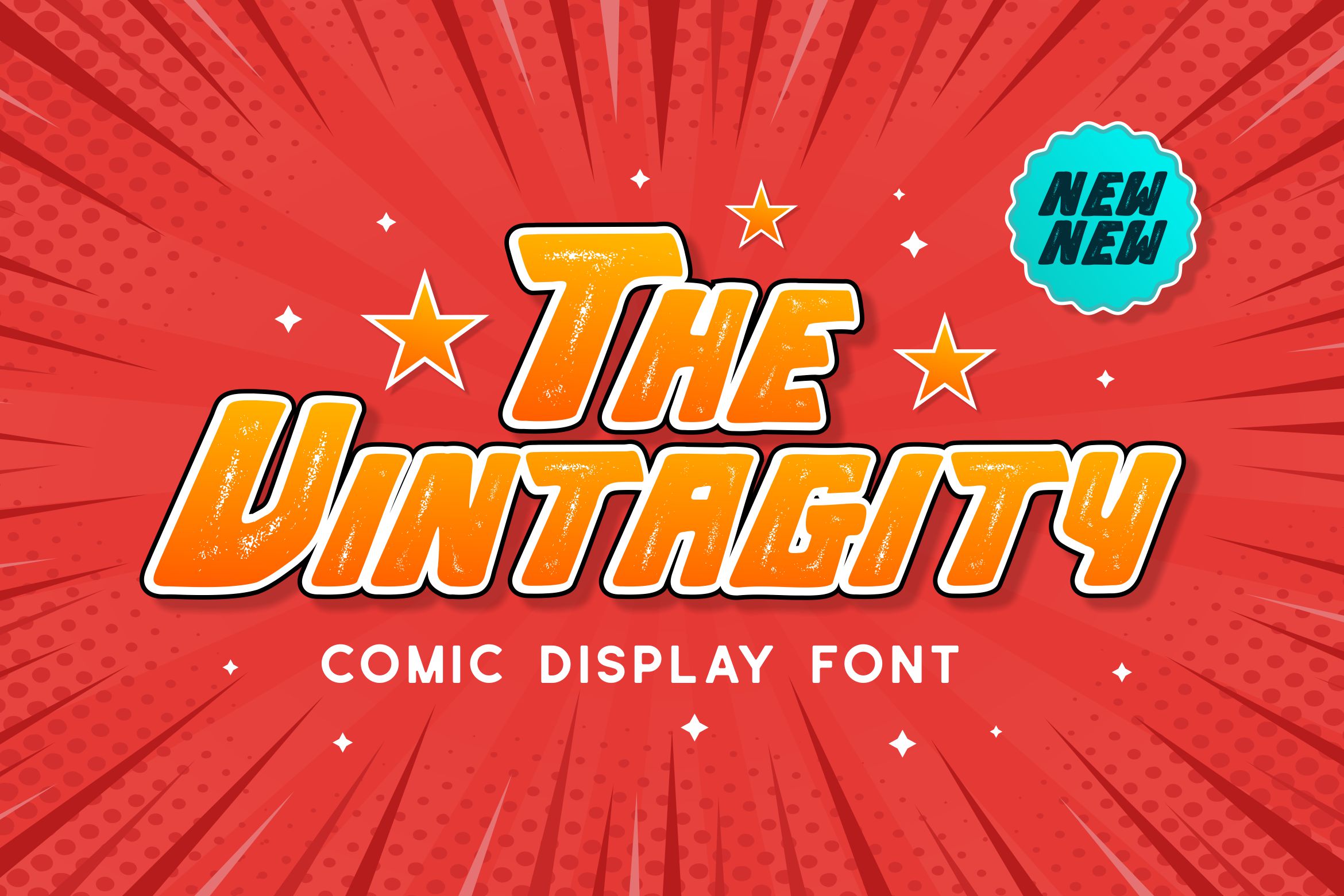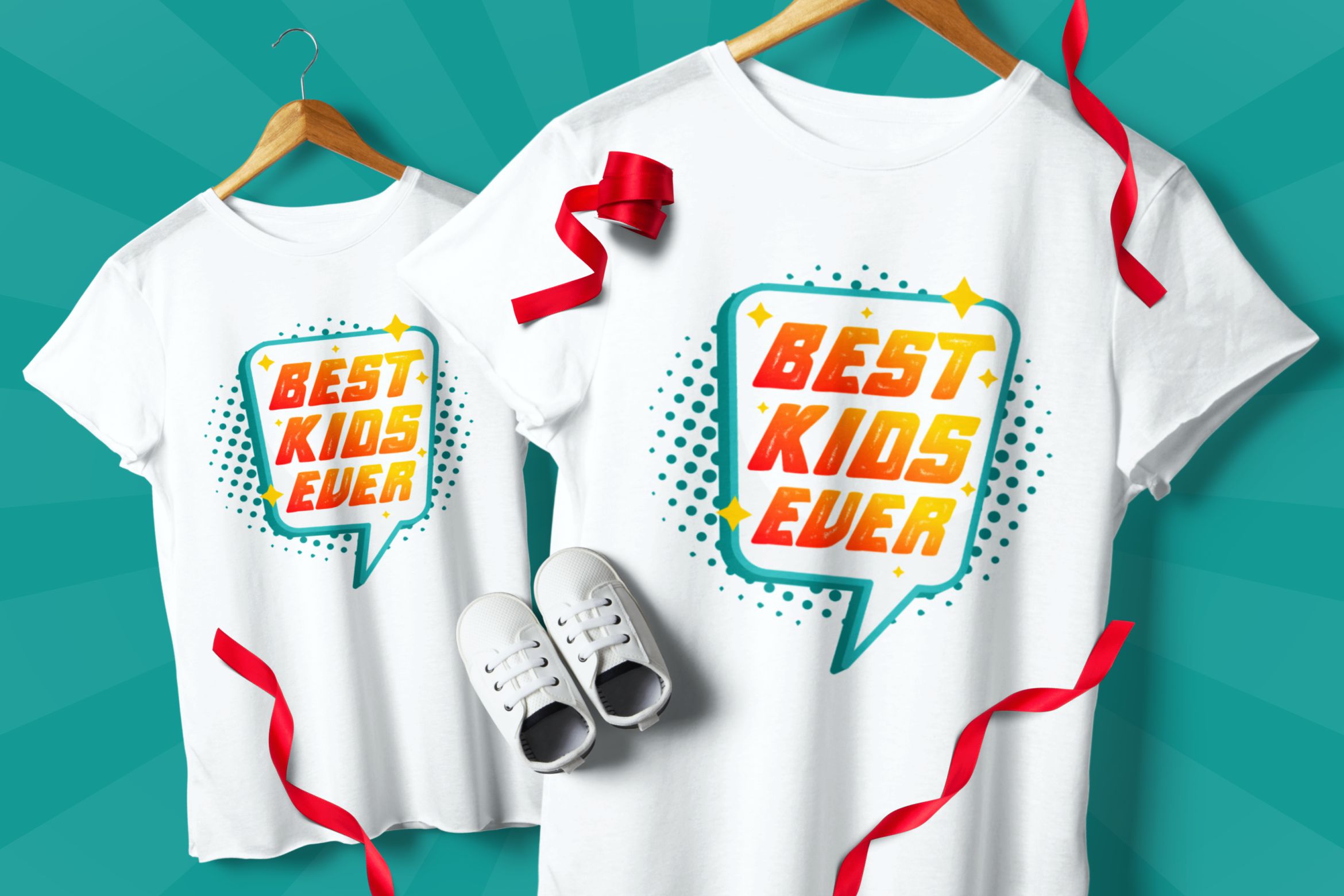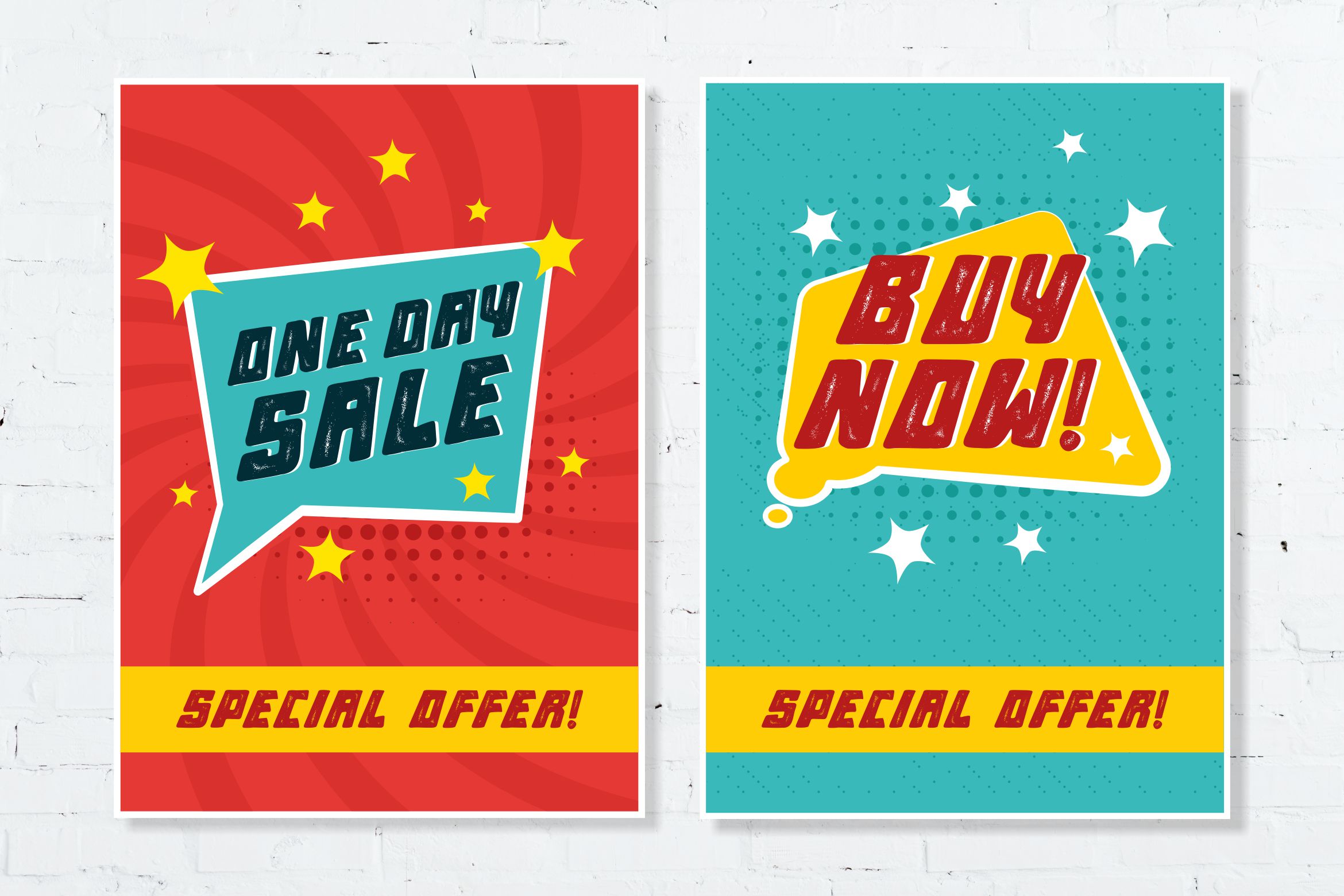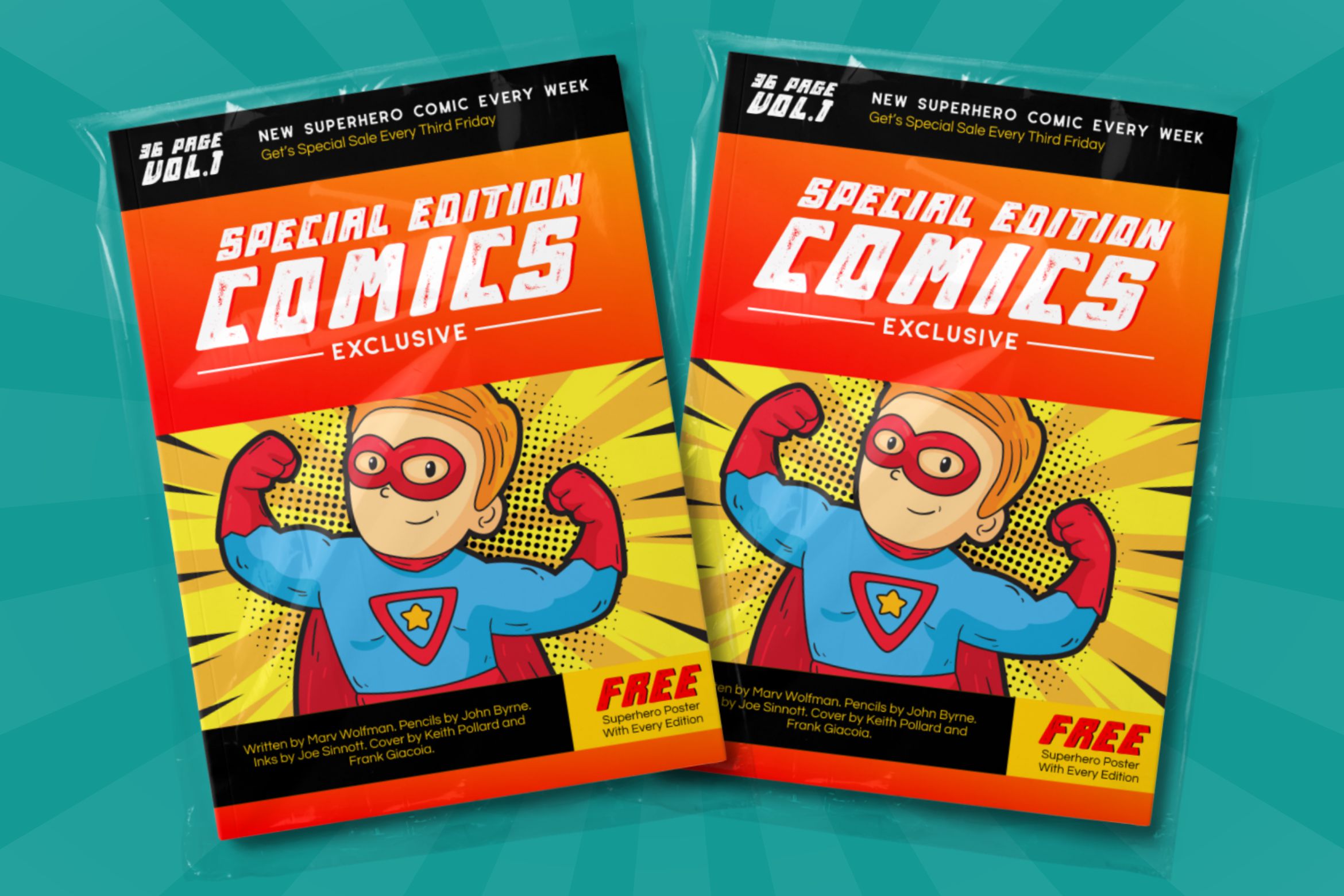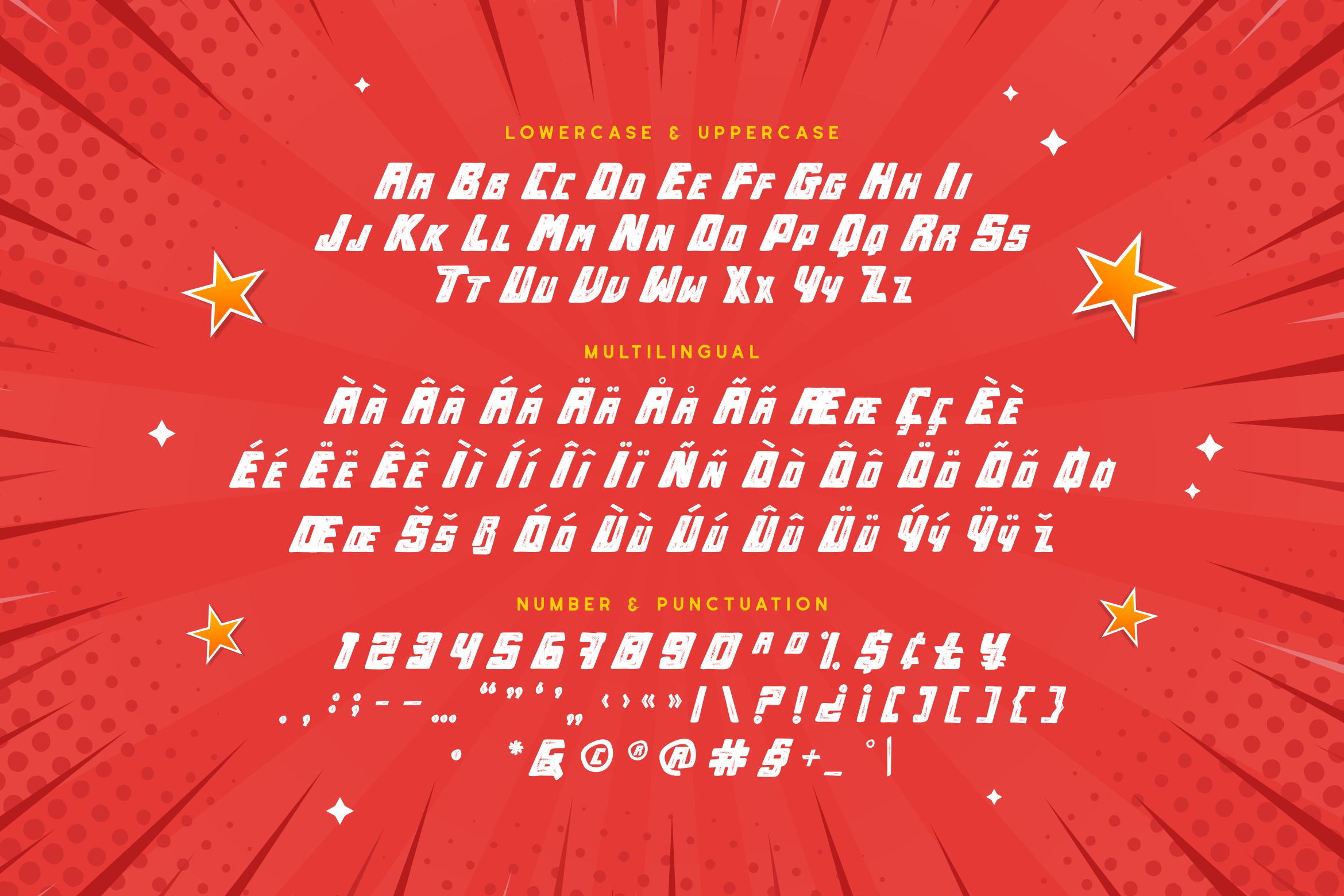
The Vintagity font is a bold and energetic comic display typeface inspired by retro superhero comics and vintage pop-art posters. With its textured details, strong curves, and playful character, Vintagity captures the excitement of classic comic book styles while bringing a modern twist. It’s perfect for projects that need a fun, powerful, and nostalgic touch, whether for branding, apparel, posters, or packaging.
This font includes uppercase, lowercase, multilingual support, numbers, and punctuation, making it versatile for a wide range of creative uses. From t-shirts and kids’ products to promotional campaigns and comic-inspired designs, Vintagity delivers a vibrant and action-packed feel that makes every word jump off the page with personality and flair.
Vintagity